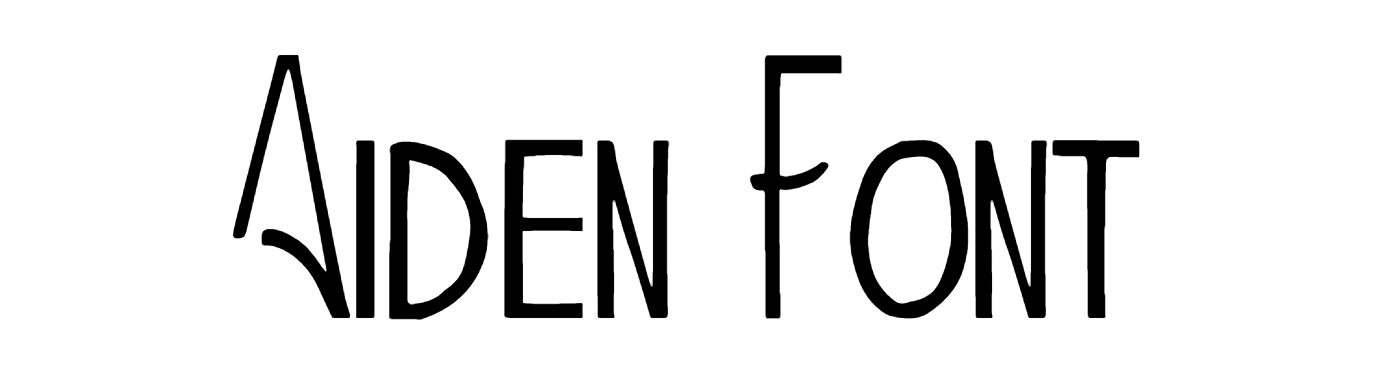
Aiden
Aiden is a fancy font designed by Ahsan. Bold and full of character, it's built to stand out rather than blend in. You can download it for free and test it with your own words in the preview above.
- Designer: Ahsan
What You Can Type With Aiden
Aiden covers the full alphabet in upper and lowercase, plus all ten numbers, so you can set names, dates and prices without switching fonts. Common punctuation such as &, !, ? and @ is included as well. It also has the accented letters you need for Spanish, French, German, Portuguese and Italian.
Where Aiden Works Best
Think of Aiden for posters, logos and eye-catching headlines. The file has no kerning data, so in logos and big titles check pairs like AV, To and Wa and tighten the spacing by hand. Use it for one standout word or headline and let simpler fonts handle the rest.
Who designed Aiden font?
Aiden was designed by Ahsan.
Does Aiden support accented letters?
Yes. Aiden includes the accented letters needed for Spanish, French, German, Portuguese and Italian, so it works for more than just English.